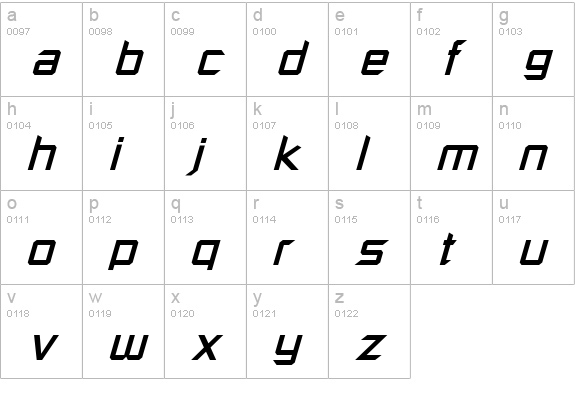
RussellSquareItalic Font Details
RussellSquareItalic font is a stylish and sophisticated typeface that exudes elegance and charm. Its italicized design adds a touch of flair to any project, making it perfect for conveying a sense of refinement and professionalism. The sleek lines and graceful curves of this font make it ideal for a wide range of design applications, from branding to editorial design. Best of all, RussellSquareItalic font is completely free to download at FontsMarket.com. This means you can add a touch of class to your projects without breaking the bank. Whether you're working on a logo, website, or print materials, RussellSquareItalic font is sure to elevate your design to the next level. Download it today and see the difference it can make in your work.